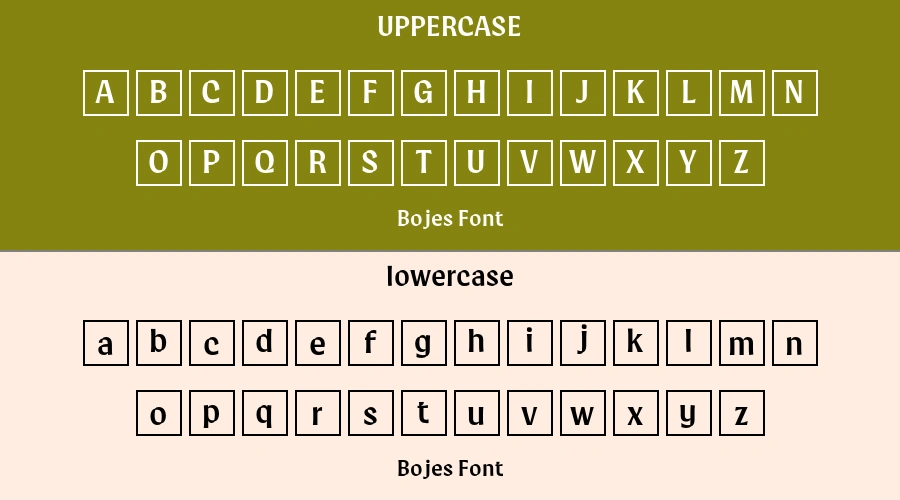
About Bojes Font
When typographic excellence matters most, Bojes Font delivers through its thoughtful blend of creative flair and durability. Specially crafted for brand guidelines, it offers the versatility and consumer connection required for sophisticated design work. Every detail serves a purpose.
The character set showcases thoughtful details like fluid connections alongside functional small caps. This proves especially valuable in hero imagery, where headline impact directly influences results. Particular attention was paid to aperture size and technical tradition during development.